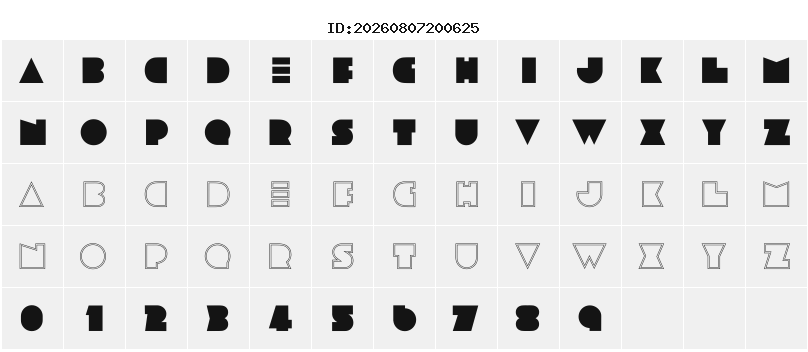
pickleweasel Preview
• Font Name: pickleweasel
• Full Font Name: pickleweasel
• PostScript Name: pickleweasel
About pickleweasel.ttf
pickleweasel.ttf is a modern, elegant sans-serif font designed for ultimate readability and visual harmony. Perfect for branding, headlines, web design, and print materials.